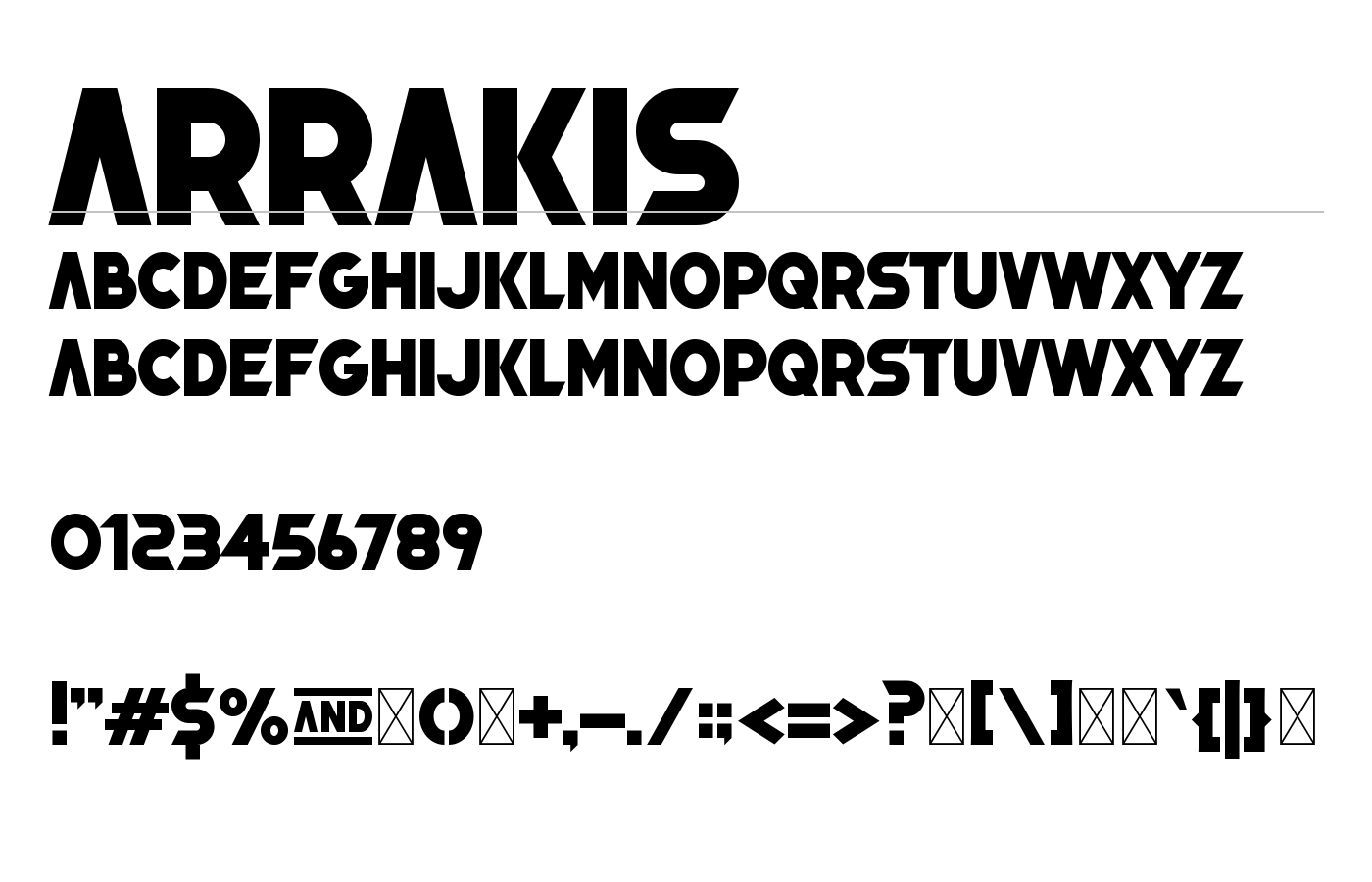
Arrakis is a bold, geometric sans serif font with a futuristic and slightly condensed style, featuring sharp angles and unique letterforms that create a strong, modern impact. Its high contrast and solid shapes make it ideal for striking headlines, logos, and branding that aim to convey innovation and confidence. This font works best in display settings where attention-grabbing and a cutting-edge feel are desired.
Arrakis Font
About Arrakis Font